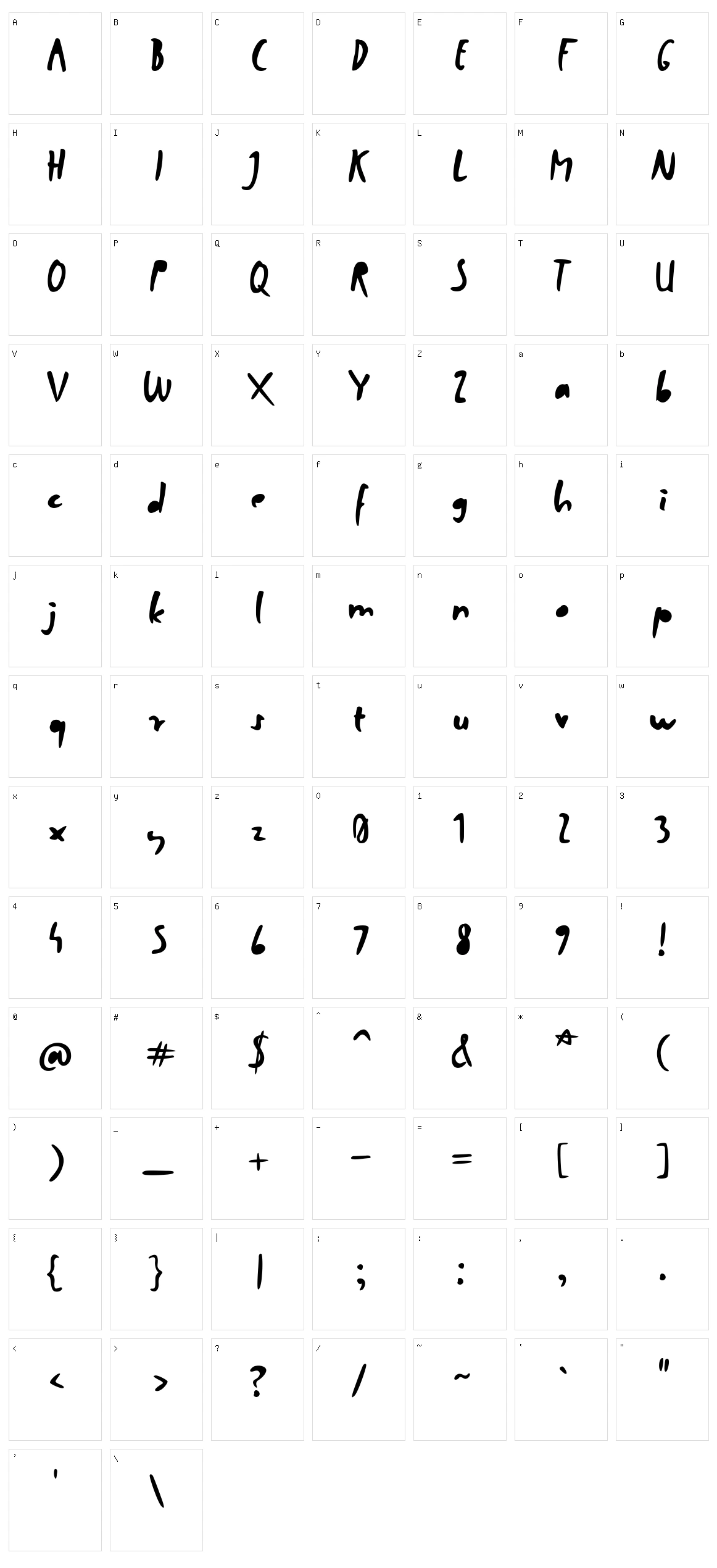
Factory Worker
ÿþFACTORY WORKER is a hand drawn scribble font inspired by years I spent as a factory worker in the Netherlands.(I am still a factory worker though: I work in my own font factory)